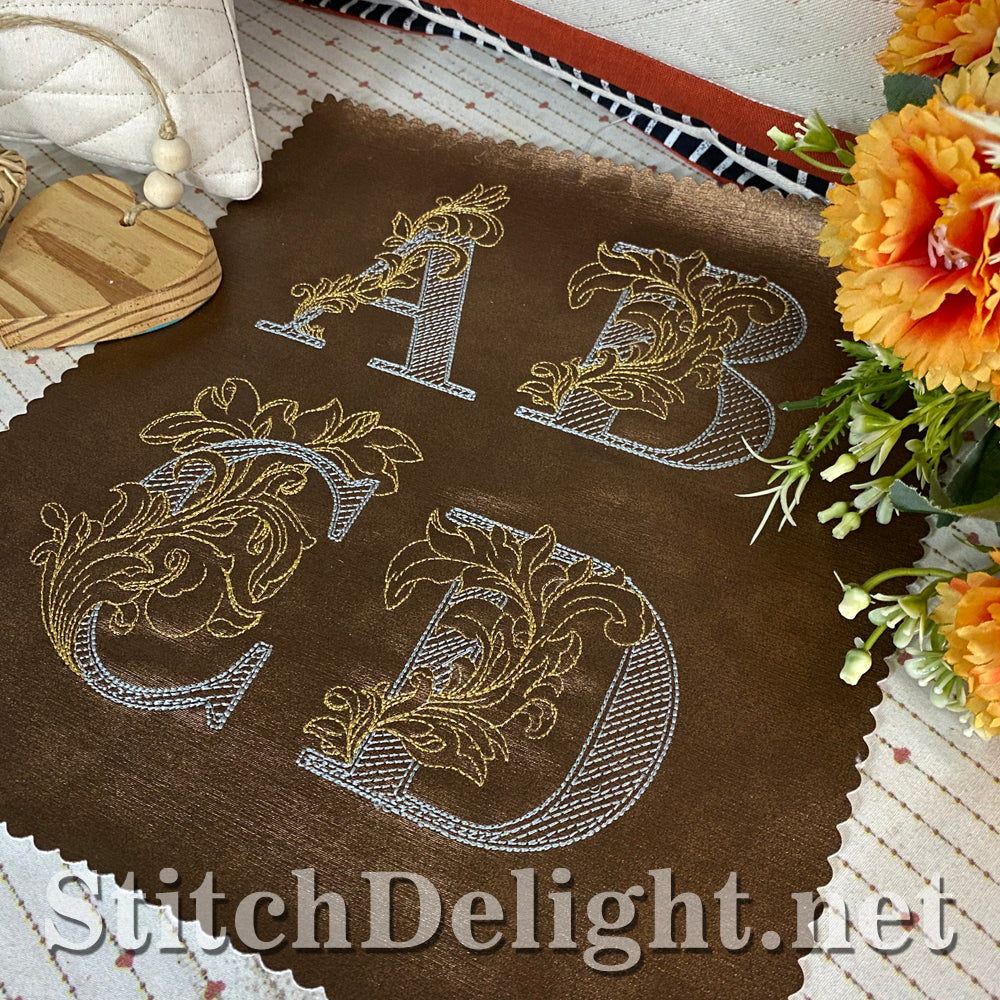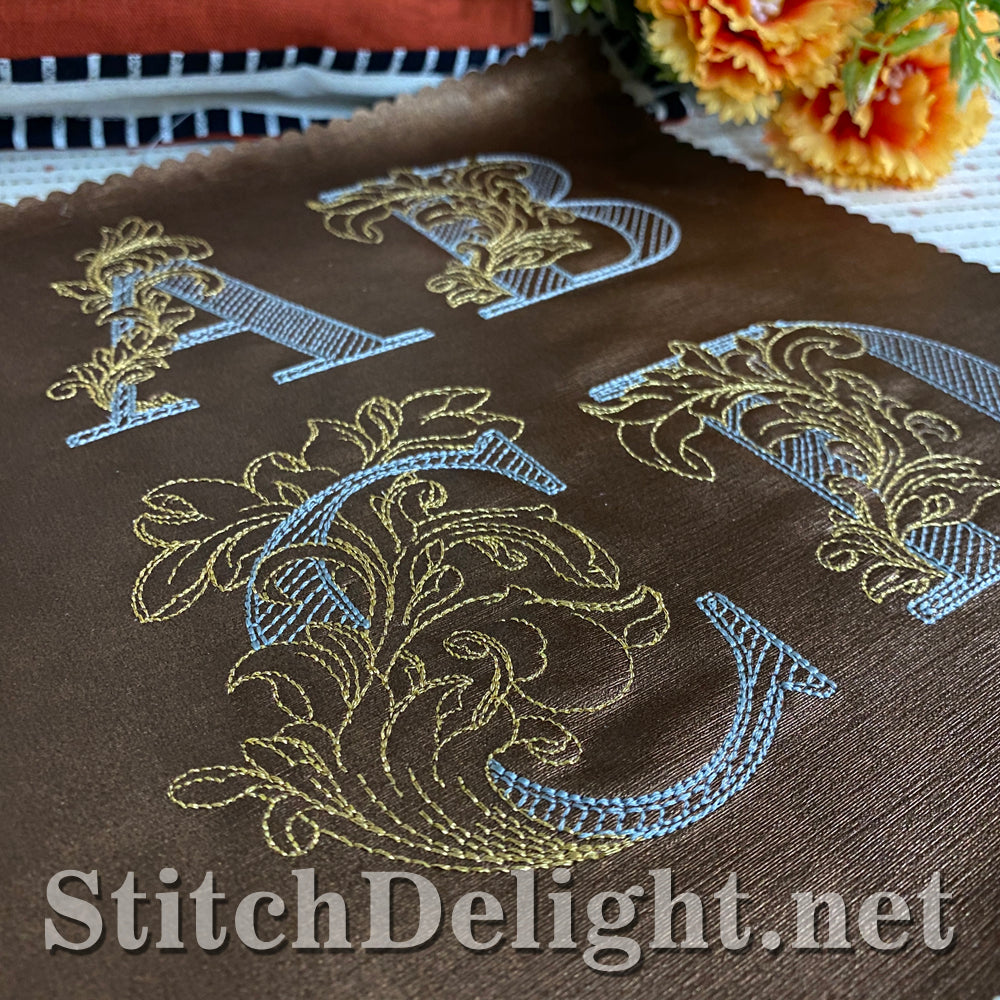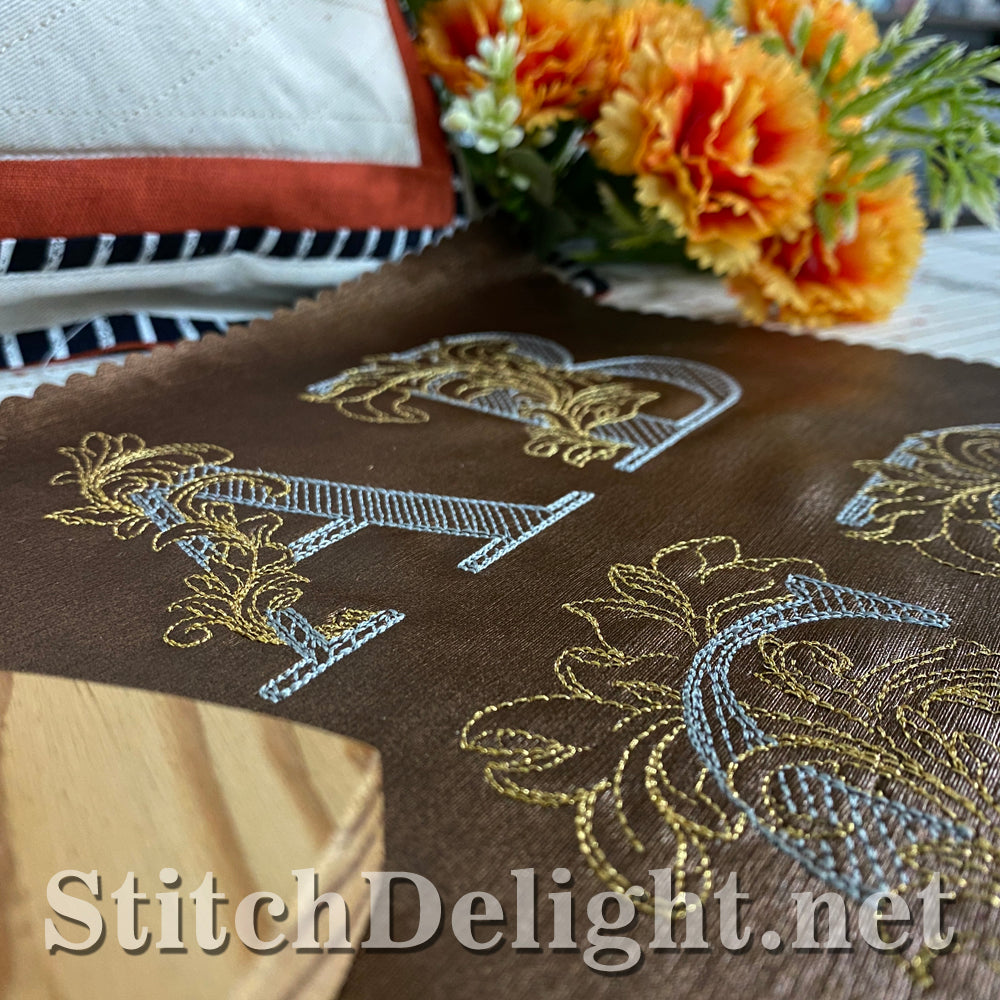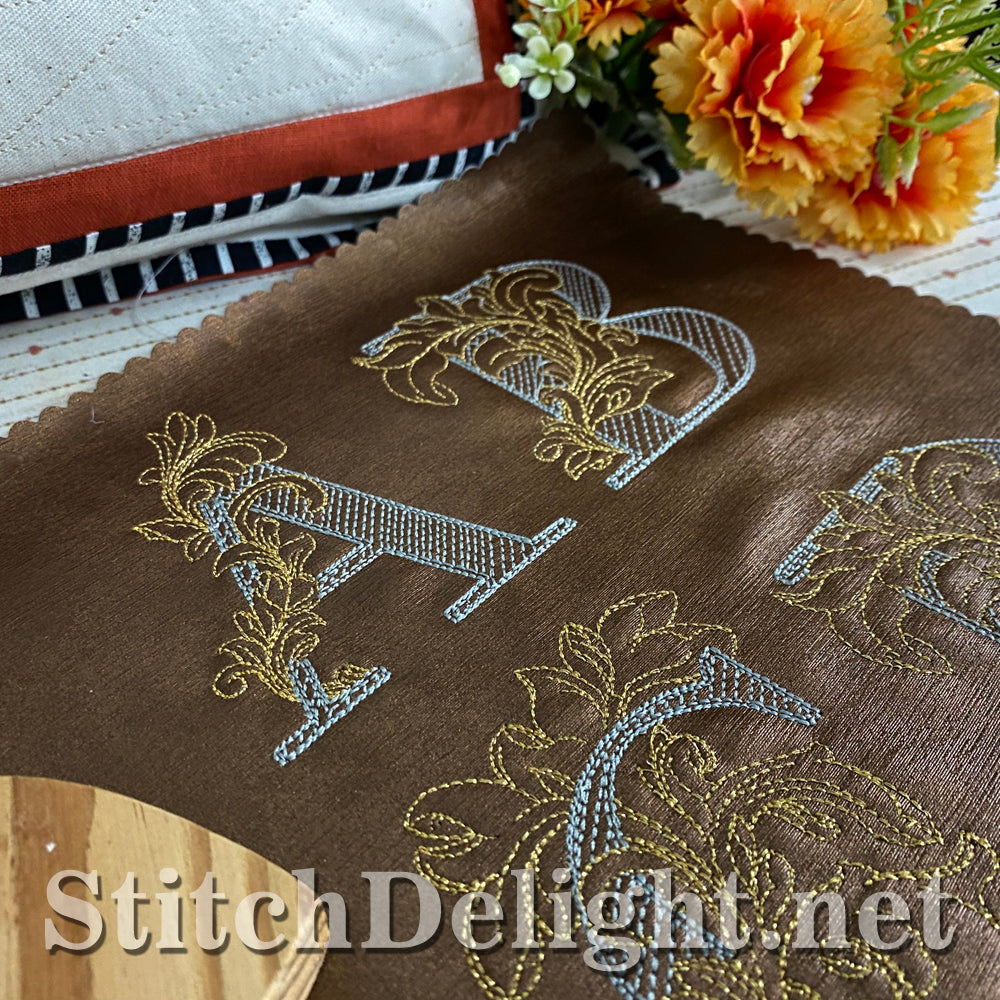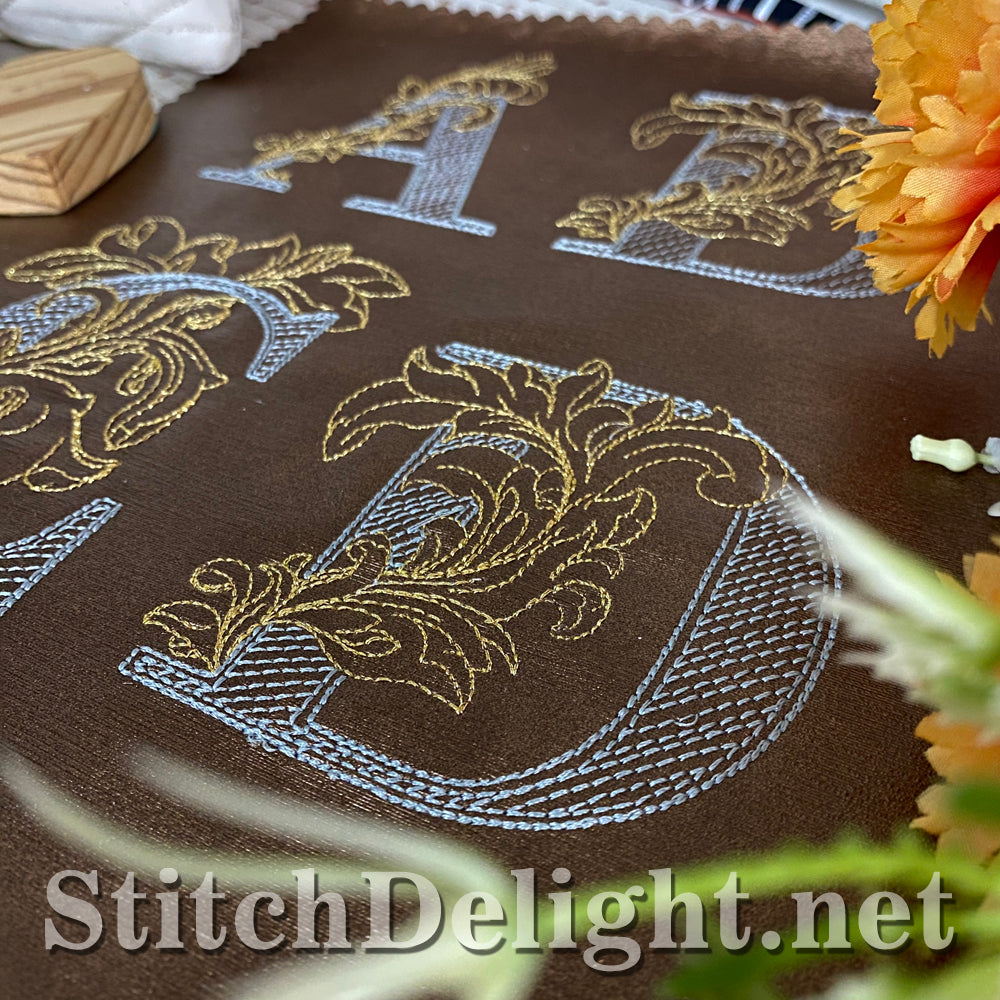
Acanthus leaf font is a stunning and intricate font featuring an Acanthus leaf woven through each letter. The font has an average height of 3.5" - making it perfect for scatter pillows, linen and garments.